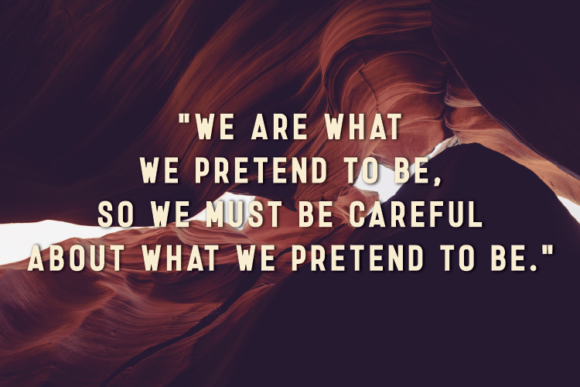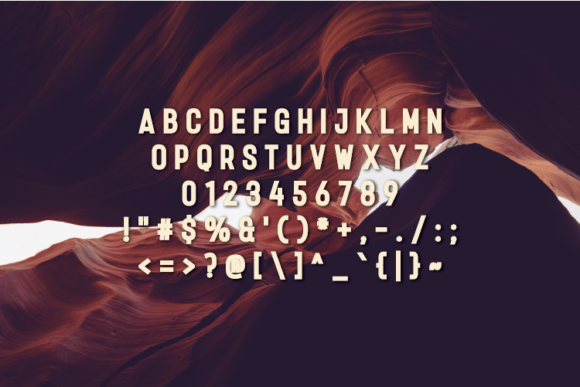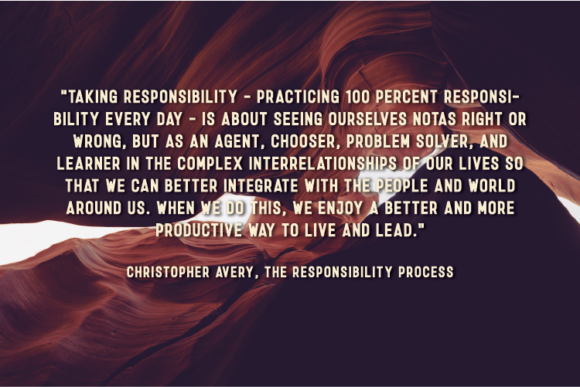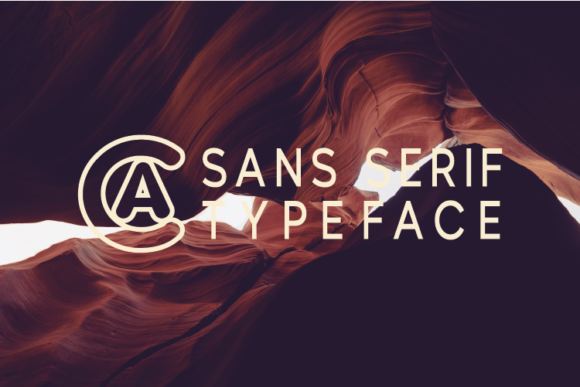
Introduction to Lemonlimes Font Font
Fonts play a crucial role in design, and the Lemonlimes Font font is a typeface that brings both character and versatility to any project. Whether you’re working on a branding project, a website, or a print design, the Lemonlimes Font font offers a unique style that can elevate your work.
Lemonlimes is a modern and classy sans serif typeface.
This extremely versatile font isperfect for logos, weddings, invitations, quotes, advertisements, print, magazines, and more .
Key Features of Lemonlimes Font Font
Why Choose Lemonlimes Font Font?
The Lemonlimes Font font is more than just a typeface – it’s a design tool that helps you communicate your message with style and clarity. Its unique character set and versatile design make it suitable for a wide range of applications, from elegant invitations to bold headlines.
With its carefully crafted letterforms and balanced proportions, the Lemonlimes Font font ensures readability and visual appeal across all mediums.
What makes Lemonlimes Font font special?
The Lemonlimes Font font stands out with its unique design, exceptional readability, and versatility across various design applications.